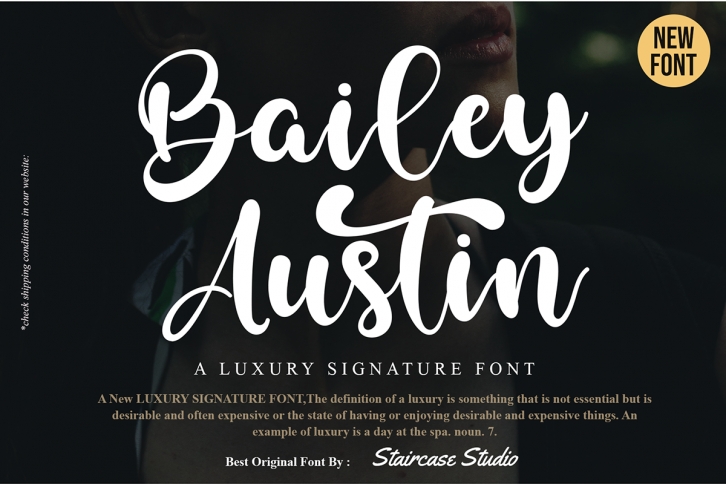
Bailey Austin is a fine and graceful handwritten font. This script font has a large spectrum of applications ranging from greeting cards to headlines and is guaranteed to add a chic feel to your next project.